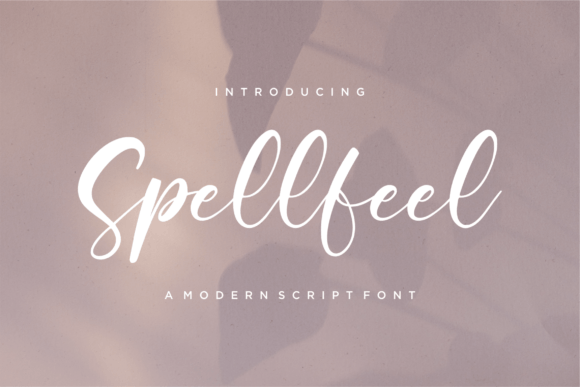
Immerse yourself in the world of expressive creativity with Spellfeel Font, a script font family that embodies the allure of industrial design. Designed by the esteemed qwrtypefoundry, Spellfeel is a captivating fusion of elegance and edginess, meticulously crafted to elevate your projects.
Spellfeel's graceful swashes and sweeping curves create an undeniable visual impact, drawing the eye with their dynamic energy. Each glyph has been carefully crafted to exude a sense of refined artistry, ensuring your designs radiate professionalism and sophistication.
Whether you're a seasoned designer or just starting your creative journey, Spellfeel is the perfect font for a wide range of applications. Its versatility knows no bounds, seamlessly adapting to product packaging, branding projects, magazines, social media posts, wedding invitations, and any other project that demands a touch of elegance.
Unleash your imagination and transcend the boundaries of ordinary design with Spellfeel. Let its enchanting characters dance across your creative canvas, weaving a tapestry of visual intrigue. From product labels that exude luxury to social media posts that captivate your audience, Spellfeel will transform your words into works of art.
Indulge in the allure of Spellfeel today and embark on a creative journey like no other. Embrace the power of typography and let your designs speak volumes. With Spellfeel, the possibilities are endless, and your creative vision will shine brighter than ever before.